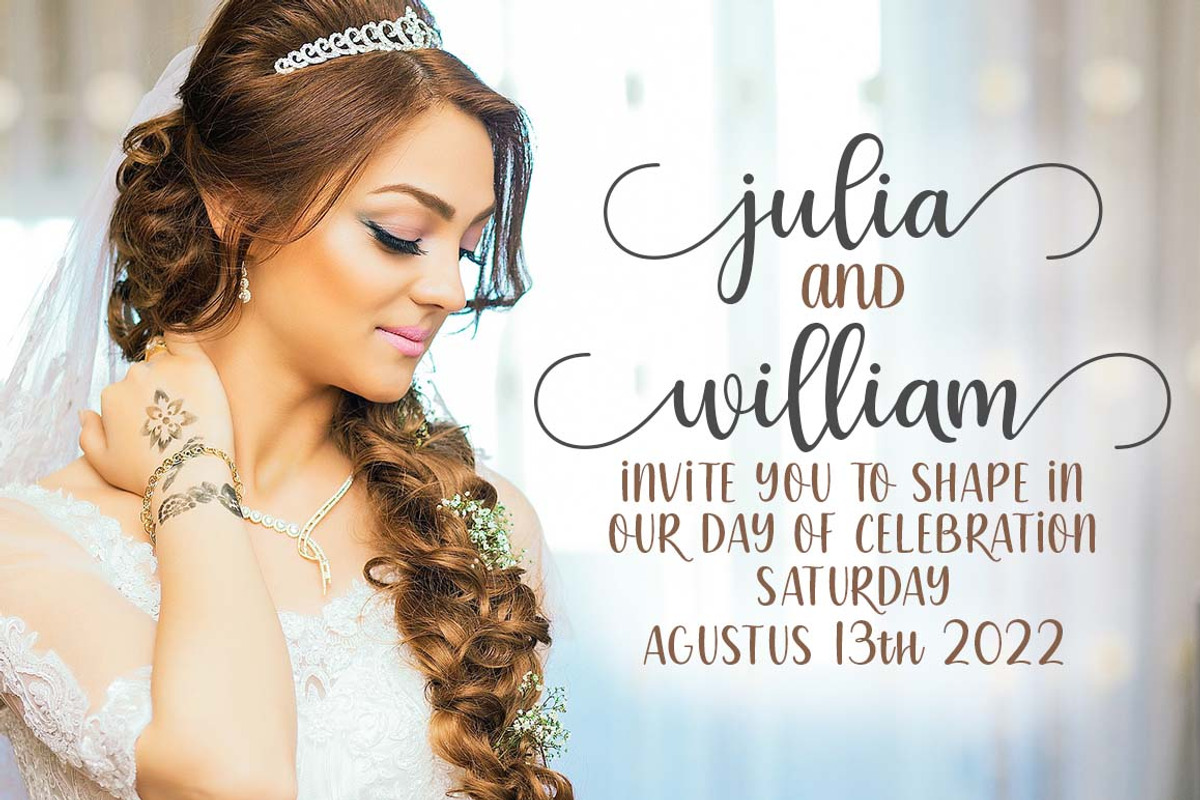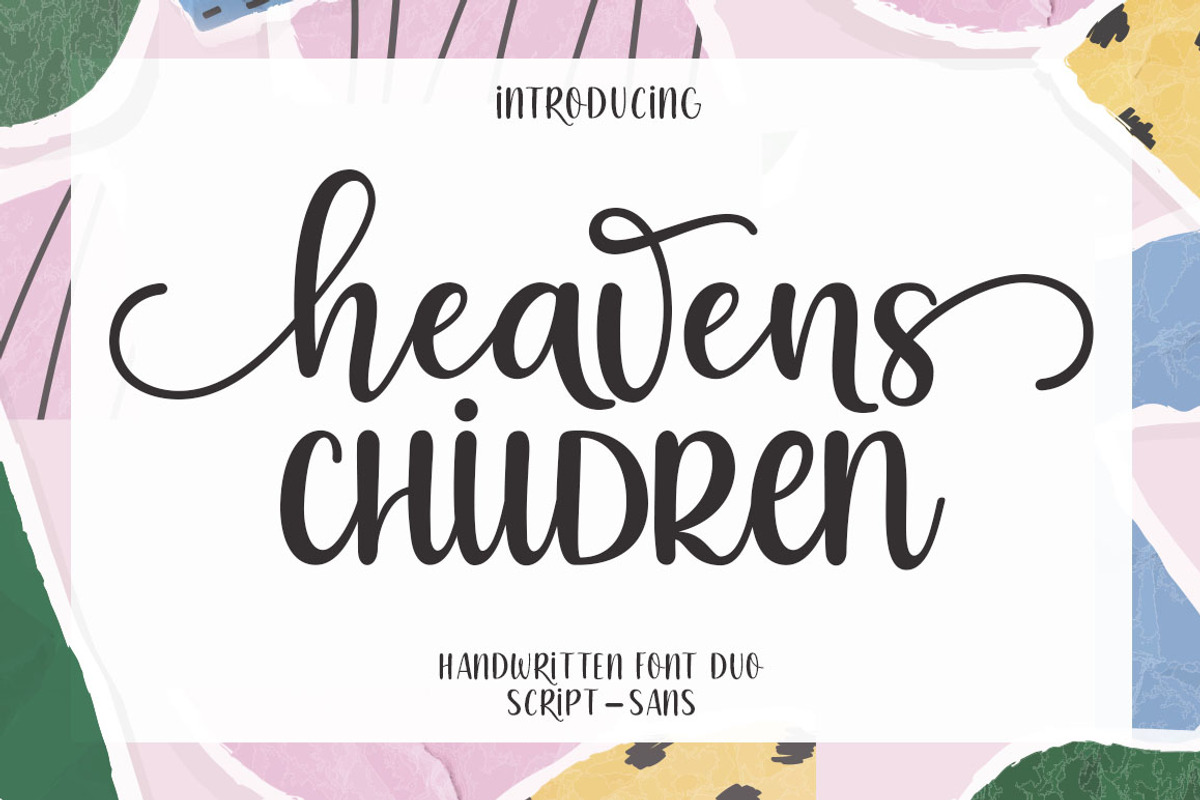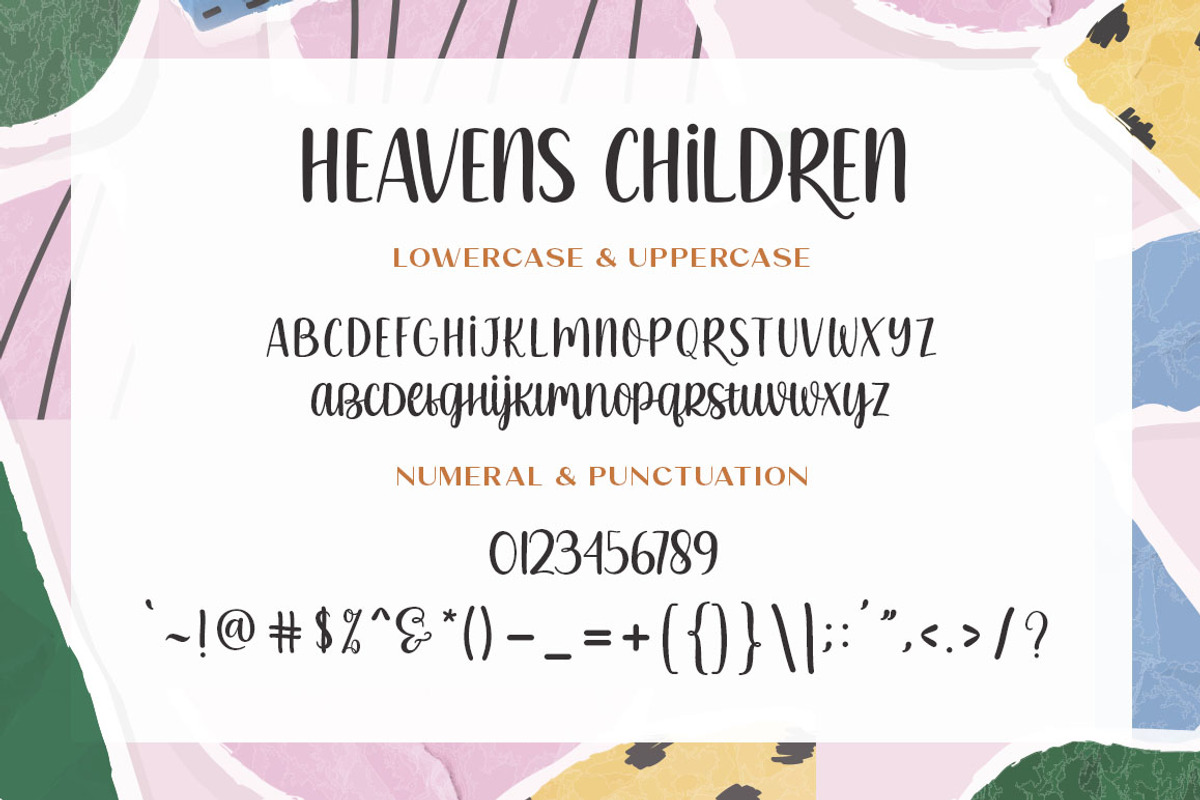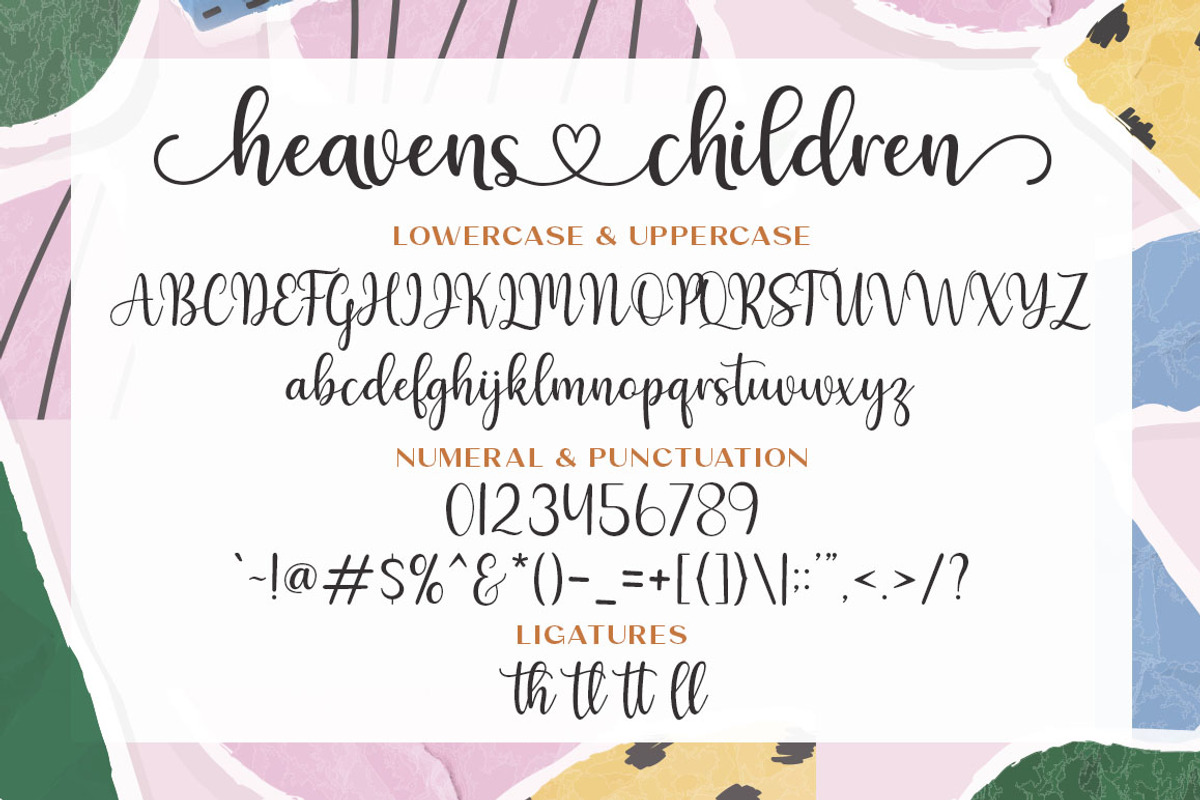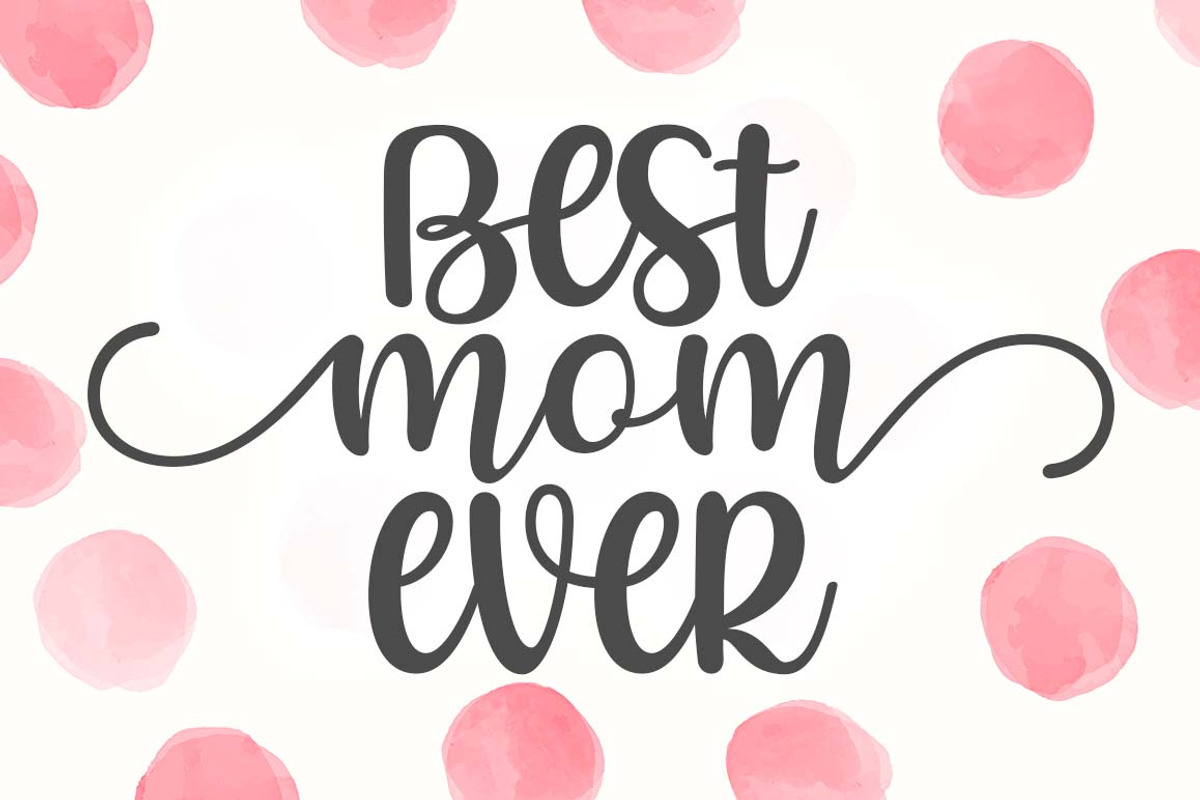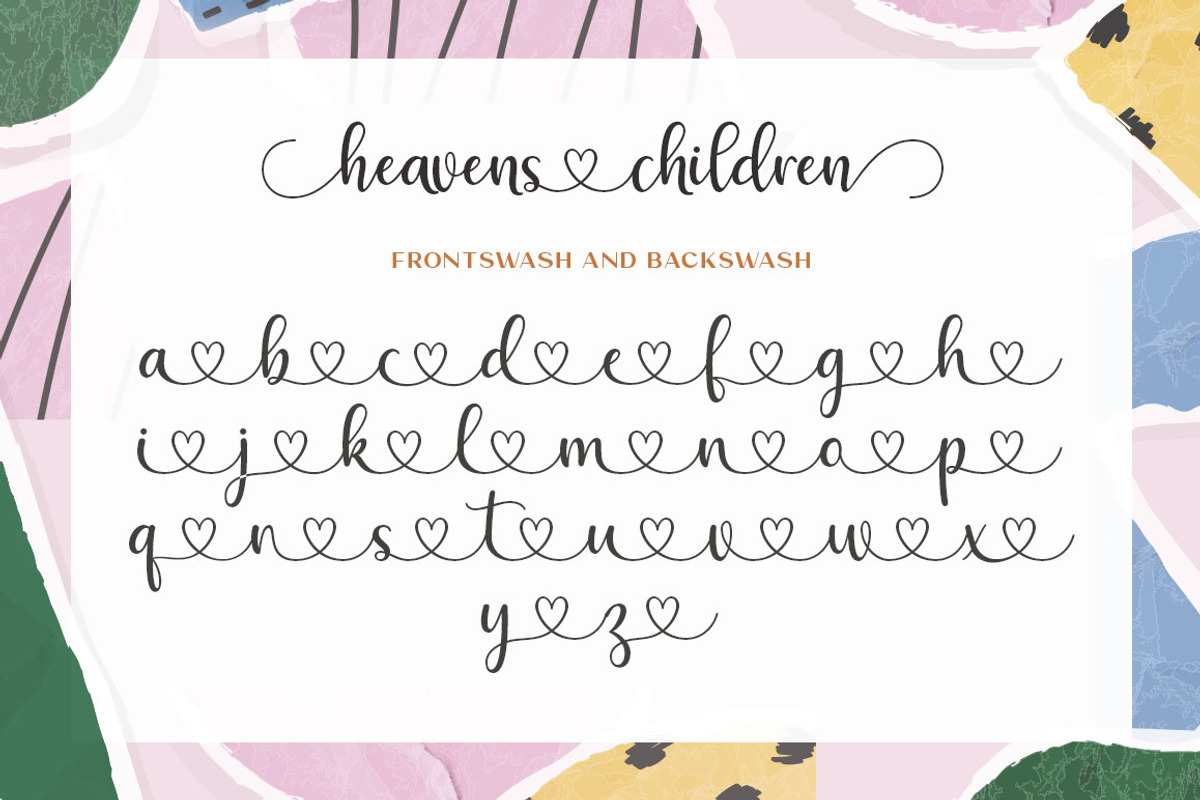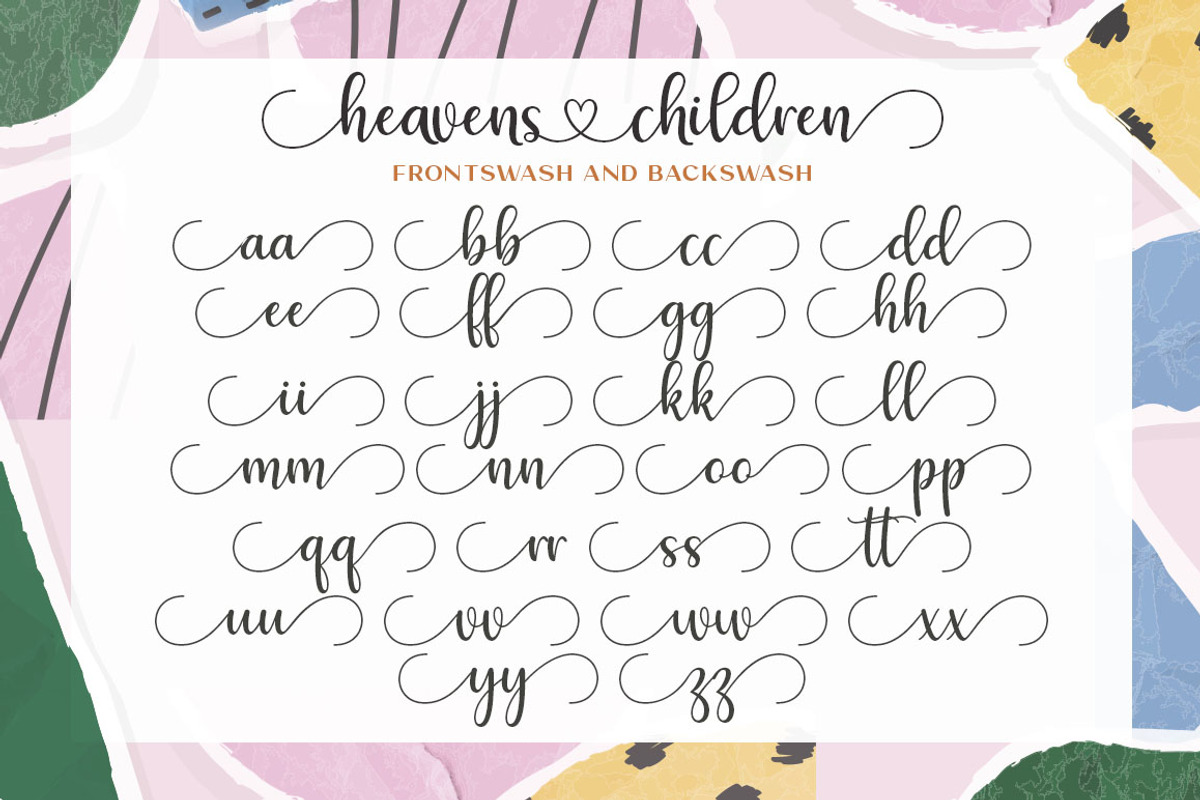
Heavens Children Font duo
Heavens Children Font duo is a script font that contains over 450 alternatives, is very easy to play, and the best part:
You also have tons of illustrations to play with, not to mention the various arrows you can switch at the beginning and end of each word!
The best tool if you want to create t-shirt designs, mug designs, logos or just playing around.